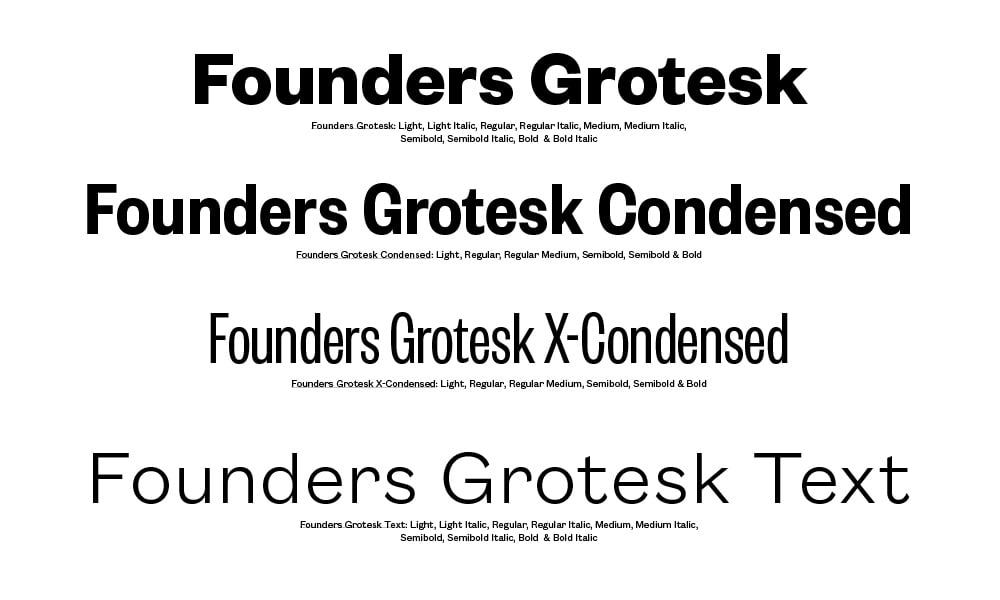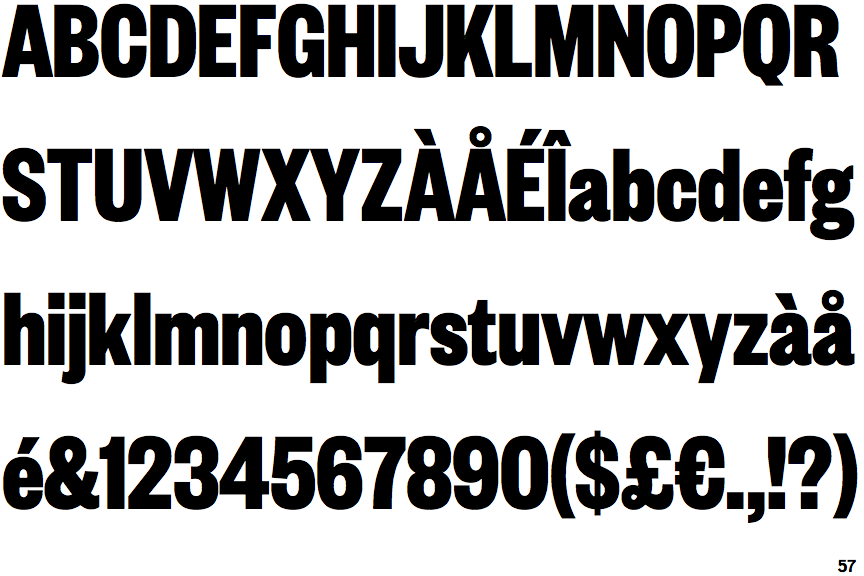
Founders Grotesk Font
Founders Grotesk Font - The design was influenced by classic grotesques from the. Test the fonts, see them in use, read about their design and buy for desktop, web & app. This is a preview font for testing, you can. Web founders grotesk is not intended as strict revival, it resolves the best details from the last century into a large family designed for modern typography. The design was influenced by classic grotesques from the. Web download test fonts ⤓. The founders grotesk collection is a contemporary amalgamation of classic grotesks.
The founders grotesk collection is a contemporary amalgamation of classic grotesks. This is a preview font for testing, you can. Web founders grotesk is not intended as strict revival, it resolves the best details from the last century into a large family designed for modern typography. The design was influenced by classic grotesques from the. Web download test fonts ⤓. Test the fonts, see them in use, read about their design and buy for desktop, web & app. The design was influenced by classic grotesques from the.
The design was influenced by classic grotesques from the. This is a preview font for testing, you can. Web founders grotesk is not intended as strict revival, it resolves the best details from the last century into a large family designed for modern typography. Test the fonts, see them in use, read about their design and buy for desktop, web & app. Web download test fonts ⤓. The design was influenced by classic grotesques from the. The founders grotesk collection is a contemporary amalgamation of classic grotesks.
Founders Grotesk Font Review Journal
The founders grotesk collection is a contemporary amalgamation of classic grotesks. The design was influenced by classic grotesques from the. Web founders grotesk is not intended as strict revival, it resolves the best details from the last century into a large family designed for modern typography. Test the fonts, see them.
Founders Grotesk By KLIM FONT vectoryellow
The founders grotesk collection is a contemporary amalgamation of classic grotesks. Web founders grotesk is not intended as strict revival, it resolves the best details from the last century into a large family designed for modern typography. The design was influenced by classic grotesques from the. Web download test fonts ⤓. This is a preview font for testing, you can.
Founders Grotesk Collection Font
Web download test fonts ⤓. The design was influenced by classic grotesques from the. Web founders grotesk is not intended as strict revival, it resolves the best details from the last century into a large family designed for modern typography. The founders grotesk collection is a contemporary amalgamation of classic grotesks. The design was influenced by classic grotesques from the.
Founders Grotesk Font Review Journal
The founders grotesk collection is a contemporary amalgamation of classic grotesks. Test the fonts, see them in use, read about their design and buy for desktop, web & app. Web founders grotesk is not intended as strict revival, it resolves the best details from the last century into a large family designed for modern typography. The design was influenced by.
Identifont Founders Grotesk Extra Condensed Bold
The design was influenced by classic grotesques from the. The founders grotesk collection is a contemporary amalgamation of classic grotesks. This is a preview font for testing, you can. Test the fonts, see them in use, read about their design and buy for desktop, web & app.
Founders Grotesk By KLIM FONT Download Free misterlasopa
The design was influenced by classic grotesques from the. This is a preview font for testing, you can. The design was influenced by classic grotesques from the. Web founders grotesk is not intended as strict revival, it resolves the best details from the last century into a large family designed for modern typography. Web download test fonts ⤓.
Founders Grotesk Font Family All Free Fonts
The founders grotesk collection is a contemporary amalgamation of classic grotesks. Test the fonts, see them in use, read about their design and buy for desktop, web & app. This is a preview font for testing, you can. Web download test fonts ⤓. Web founders grotesk is not intended as strict revival, it resolves the best details from the last.
Founders Grotesk Font Fonts Hut
The design was influenced by classic grotesques from the. Web founders grotesk is not intended as strict revival, it resolves the best details from the last century into a large family designed for modern typography. Web download test fonts ⤓. The founders grotesk collection is a contemporary amalgamation of classic grotesks. This is a preview font for testing, you can.
Founders Grotesk Regular Version 1.001;PS 1.000;hotconv 1.0.57
Test the fonts, see them in use, read about their design and buy for desktop, web & app. Web founders grotesk is not intended as strict revival, it resolves the best details from the last century into a large family designed for modern typography. This is a preview font for testing, you can. Web download test fonts ⤓. The founders.
Founders Grotesk Font Review Journal
Test the fonts, see them in use, read about their design and buy for desktop, web & app. Web download test fonts ⤓. The founders grotesk collection is a contemporary amalgamation of classic grotesks. This is a preview font for testing, you can. The design was influenced by classic grotesques from the.
The Design Was Influenced By Classic Grotesques From The.
Web founders grotesk is not intended as strict revival, it resolves the best details from the last century into a large family designed for modern typography. This is a preview font for testing, you can. Test the fonts, see them in use, read about their design and buy for desktop, web & app. Web download test fonts ⤓.
The Founders Grotesk Collection Is A Contemporary Amalgamation Of Classic Grotesks.
The design was influenced by classic grotesques from the.